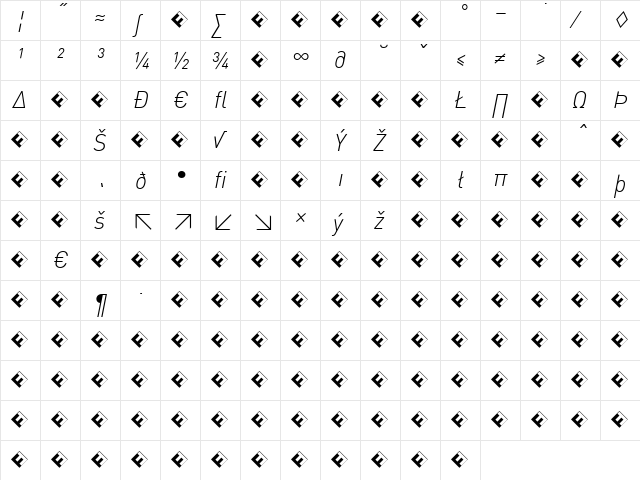
DIN-LightItalicExp Regular Font Preview
Design Context for DIN-LightItalicExp Typeface
DIN-LightItalicExp takes a measured approach to typography — its balanced proportions and neutral character make it a reliable workhorse for both digital and print work. Its italic angle brings a sense of urgency and motion to the letterforms. Its slender proportions lend an understated elegance to any composition.
Pro Tip: Try DIN-LightItalicExp for annotation and caption copy alongside an upright companion — the contrast in angle creates a dynamic but ordered typographic system.